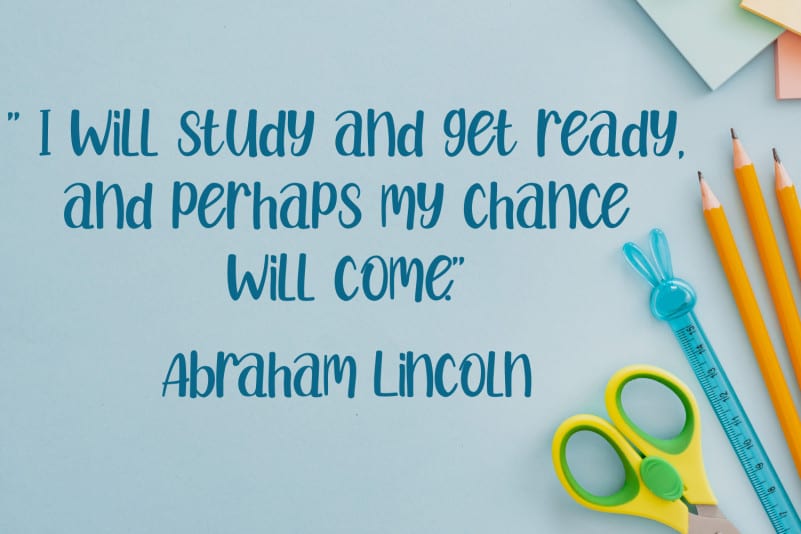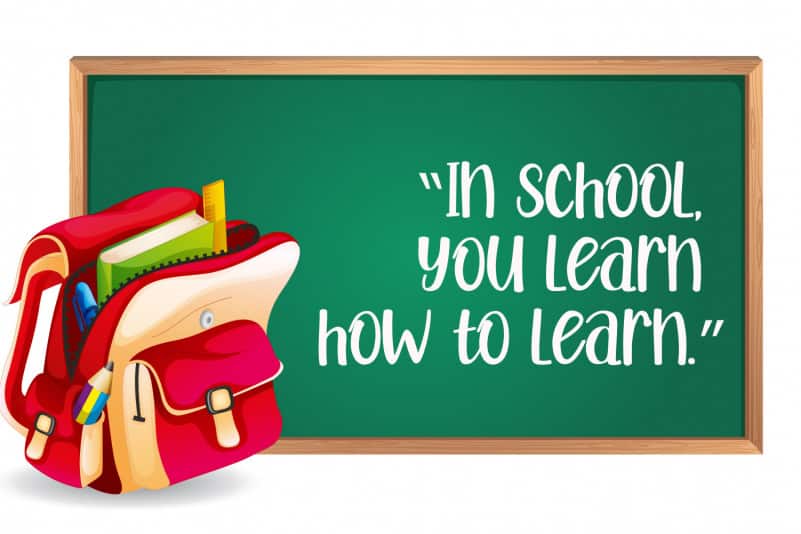
Bella Years Font
Bella Years Font is a sweet and friendly handwritten font. This dazzling handwritten font will turn any creative idea into a standout. Its natural and unique style makes it incredibly fitting to a large pool of designs. Get inspired by its authentic feel and use it to make beautiful wedding invitations, beautiful stationery art, eye-catching social media posts, and cute greeting cards. The only limit is your imagination!